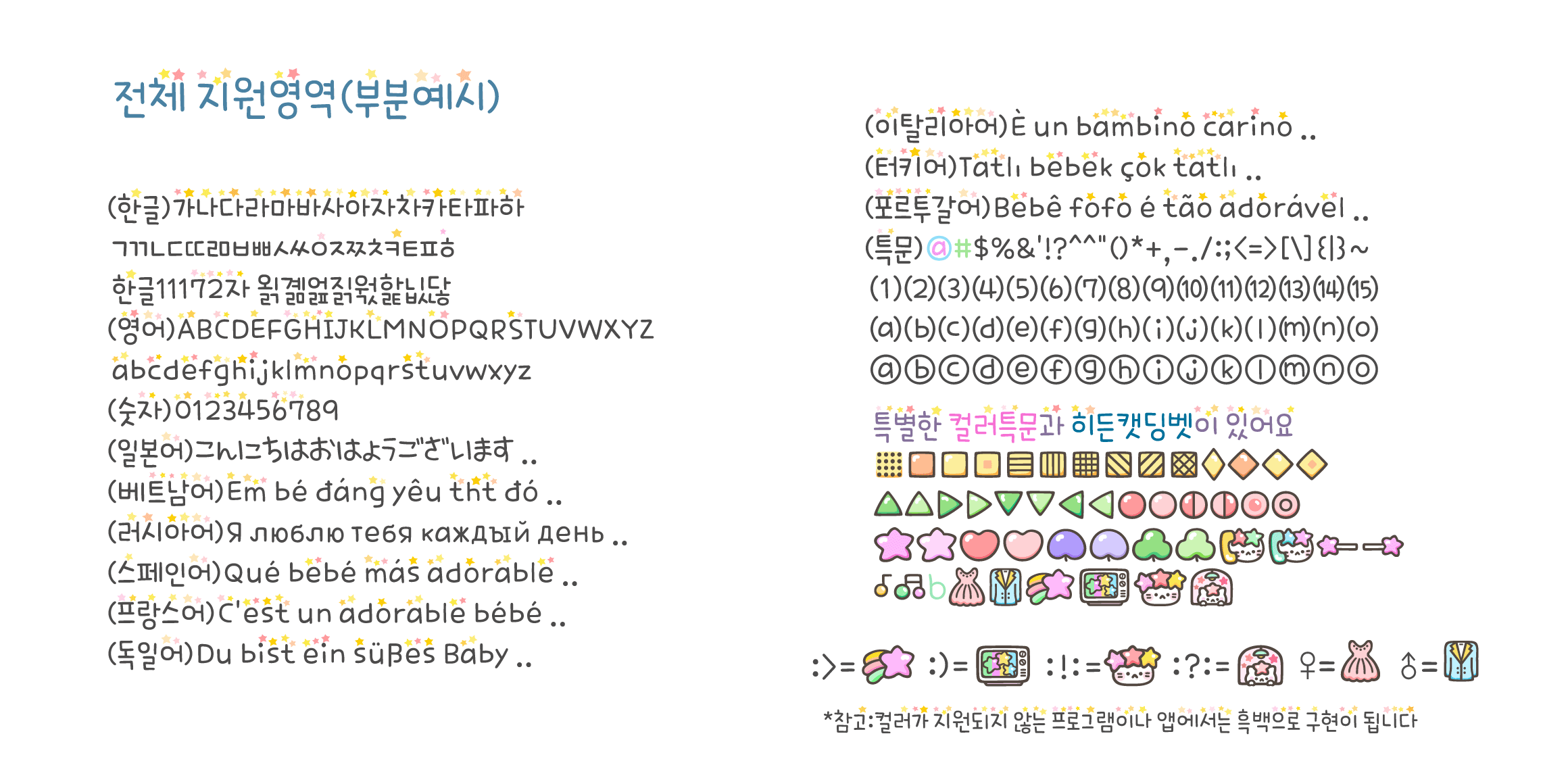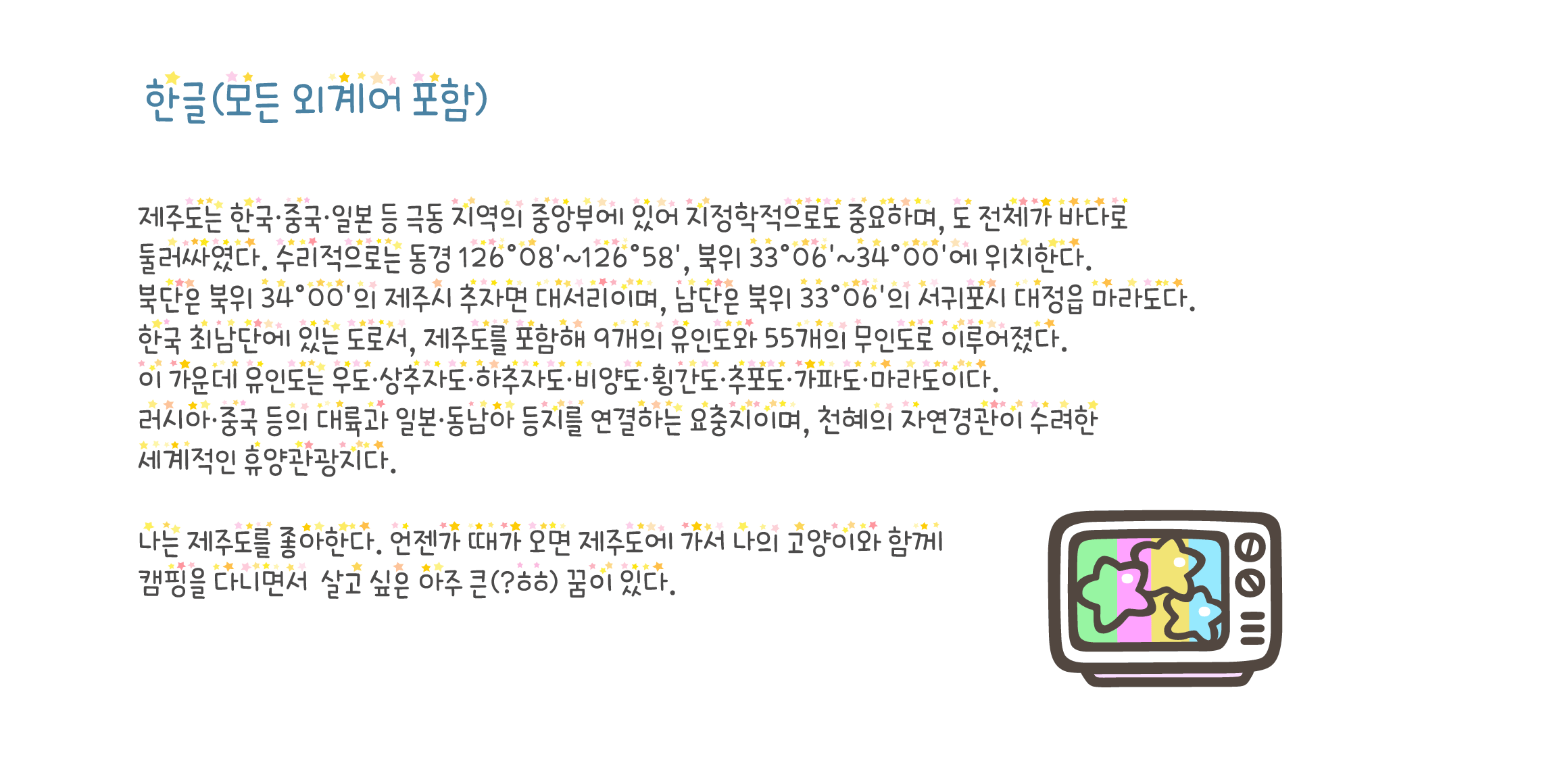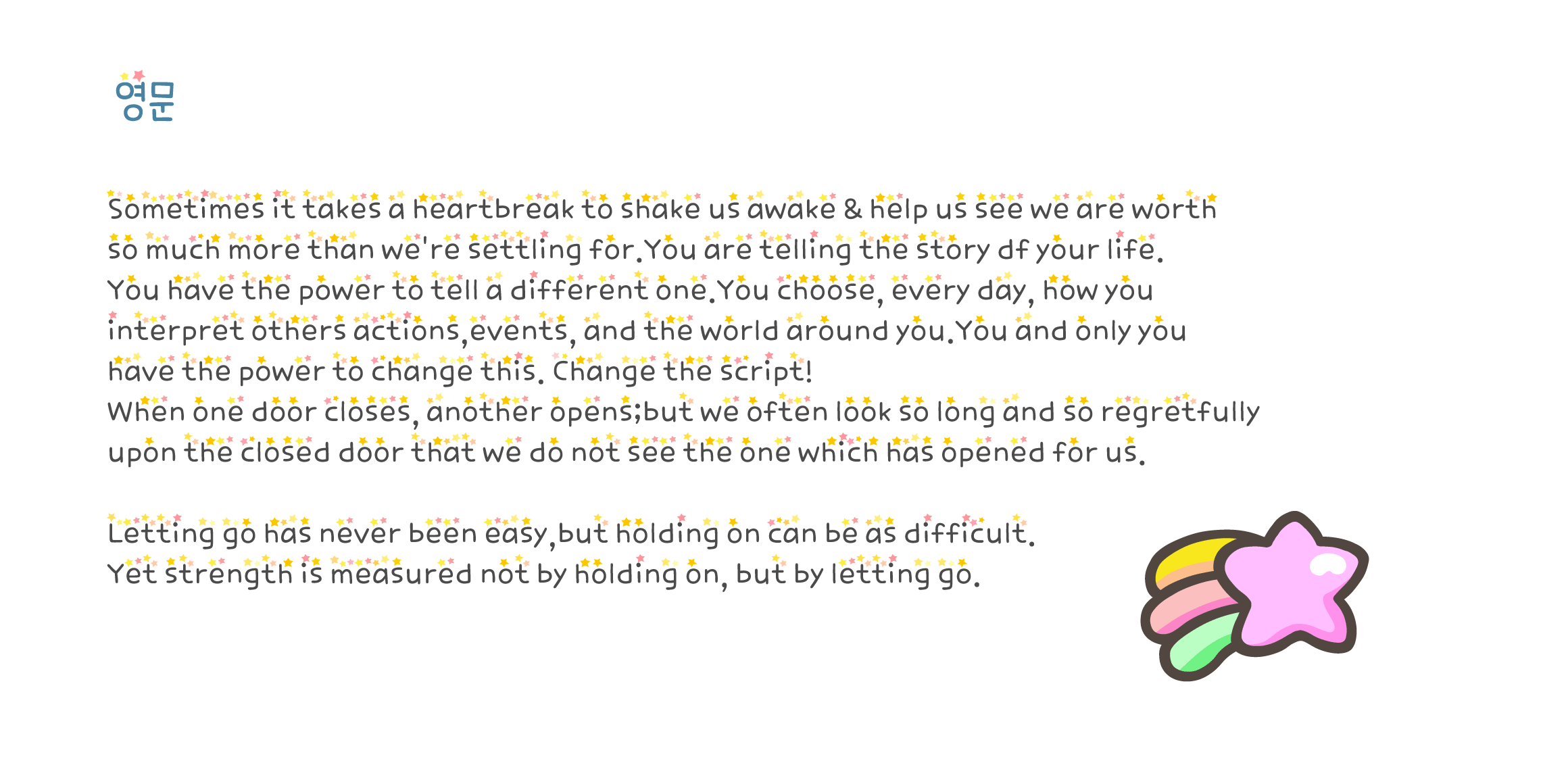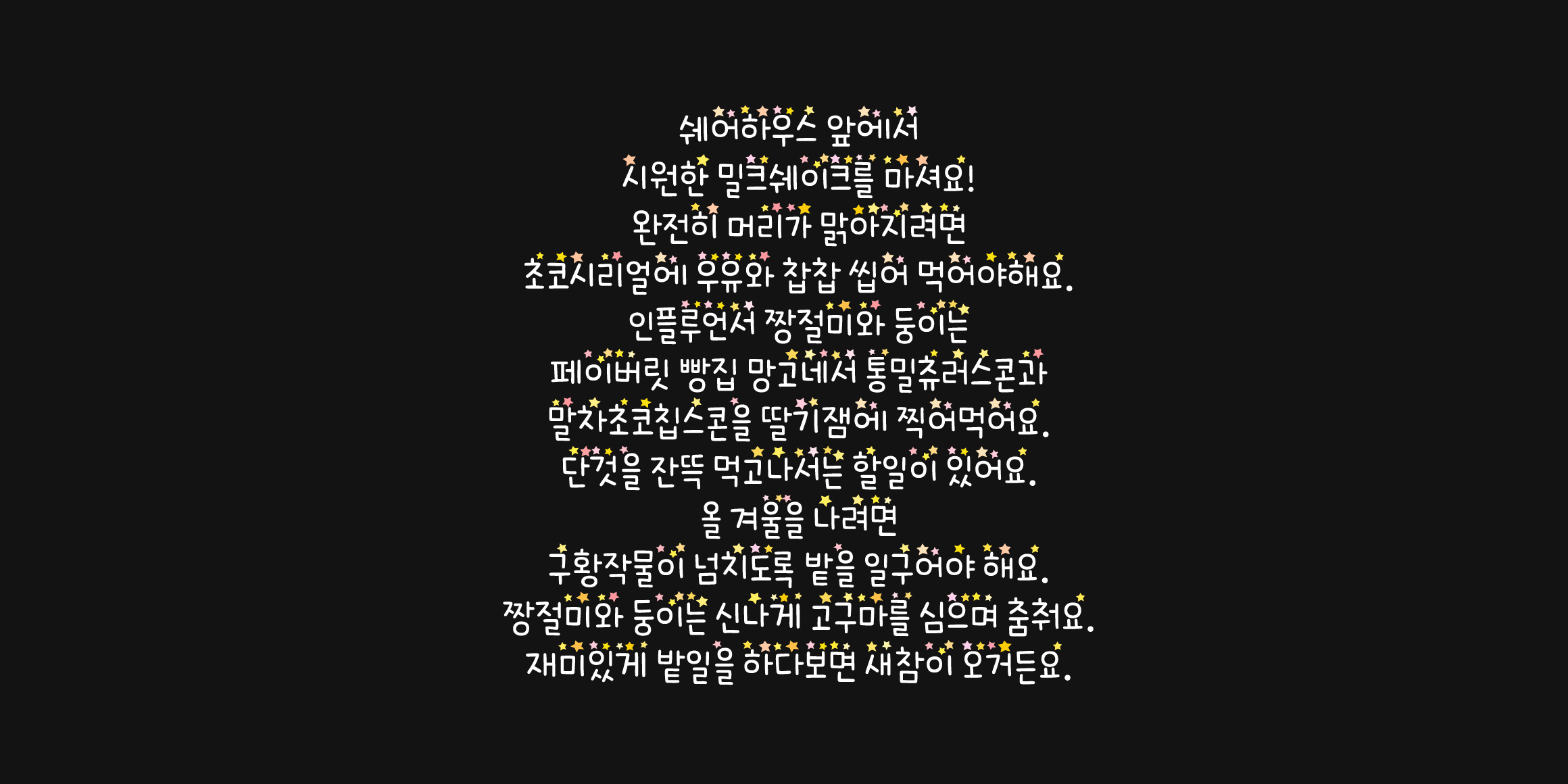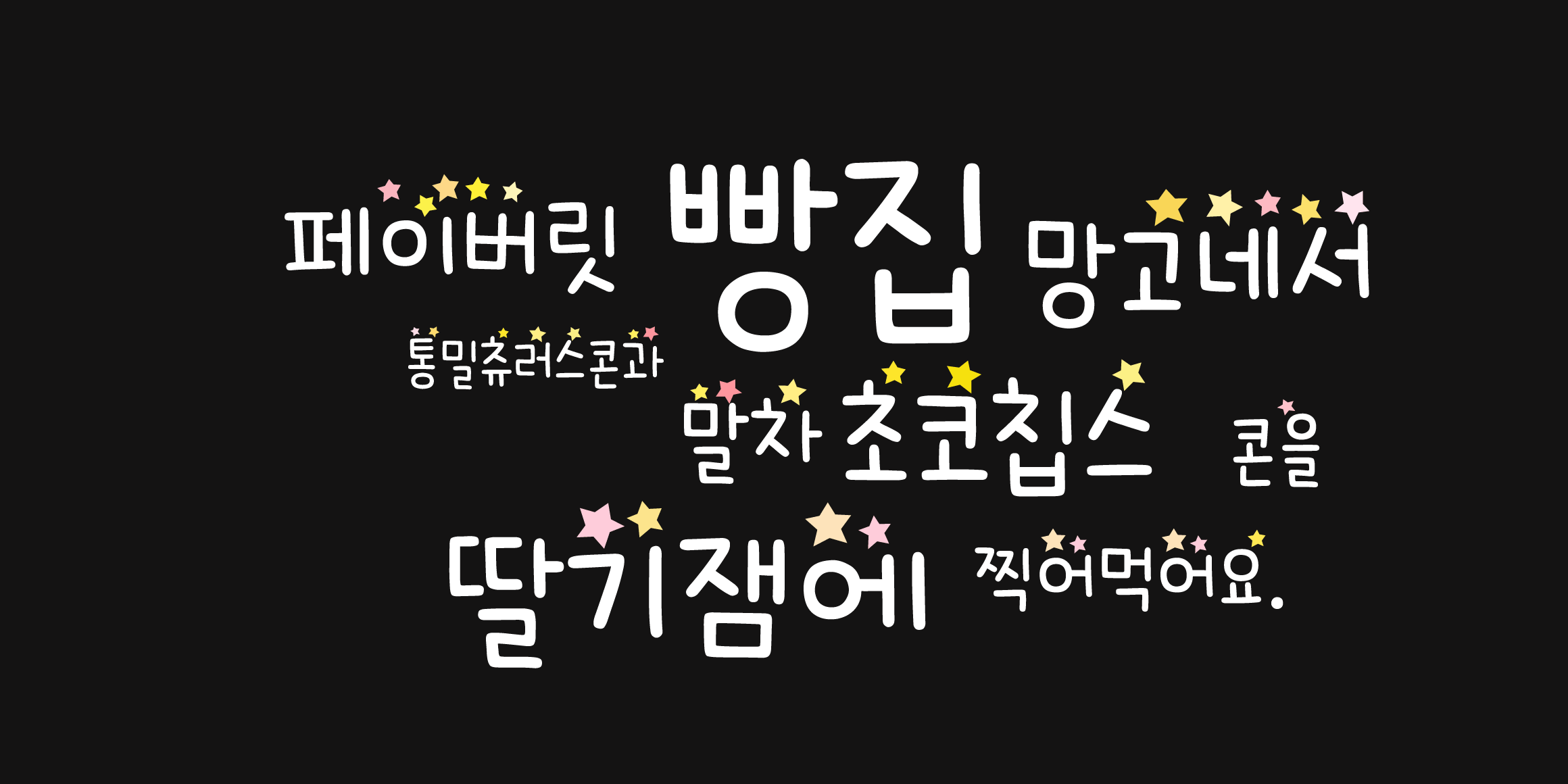
(CatFont Season2 font)
This font was created by imagining a scene of a white cat,
believing that its favorite thing in the world is twinkling stars,
gazing at the countless twinkling stars in the sky.
Stars twinkle on top of the letters.
If you occasionally feel like looking at the stars in the night sky,
try switching to dark mode and using this font;
you will appreciate its charm even more!
Including English, Japanese, and Vietnamese.
Germany, France, Russia, Italy, Portugal, Spain, Turkey, etc.
It also supports the languages of various European countries.
It supports a wide range of languages and special characters.
♥ Keyboard : ! : and : ? : and ; ) and ; > If you type in a row,
Cat Font's unique dingbet is hidden.
♥ Including English, Japanese, and Vietnamese,
Germany, France, Russia, Italy, Portugal, Spain, Turkey, etc.
It also supports the languages of various European countries.
It supports a wide range of languages and special characters.